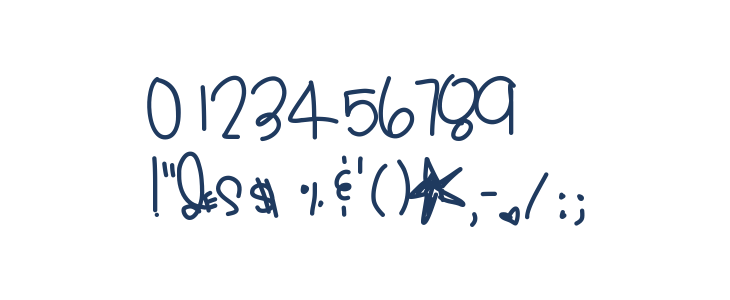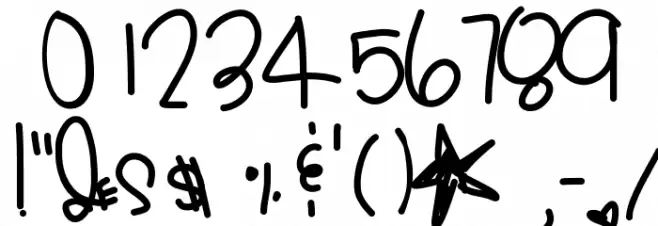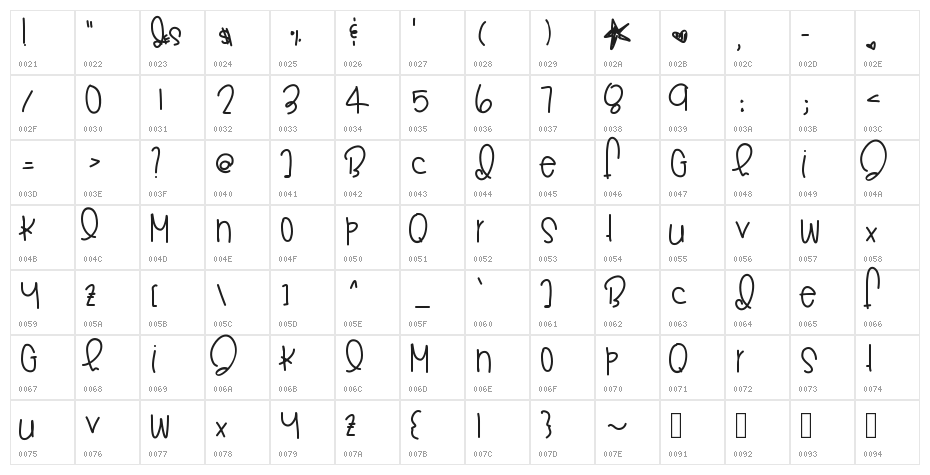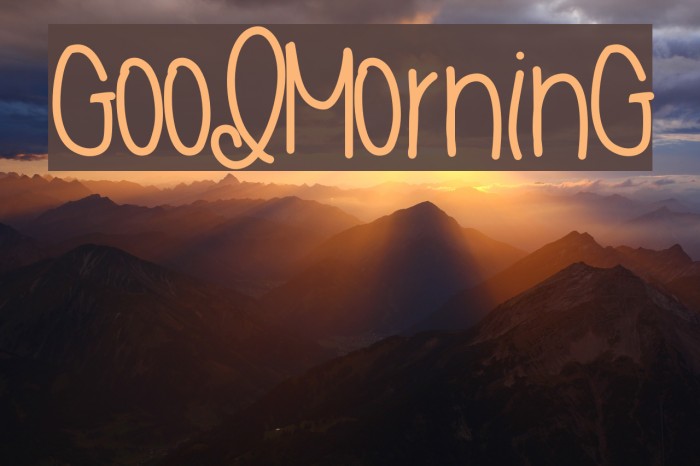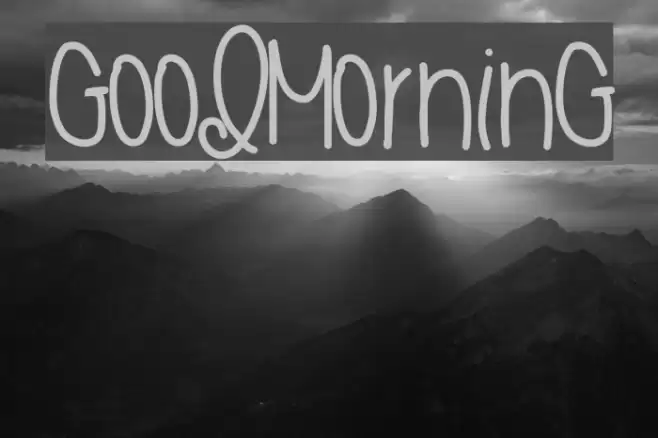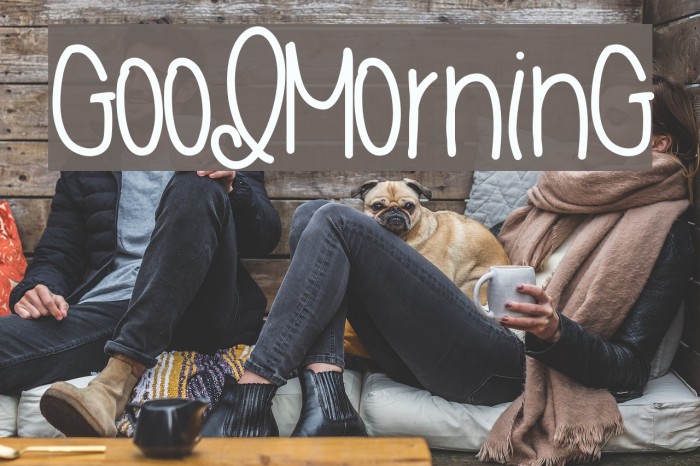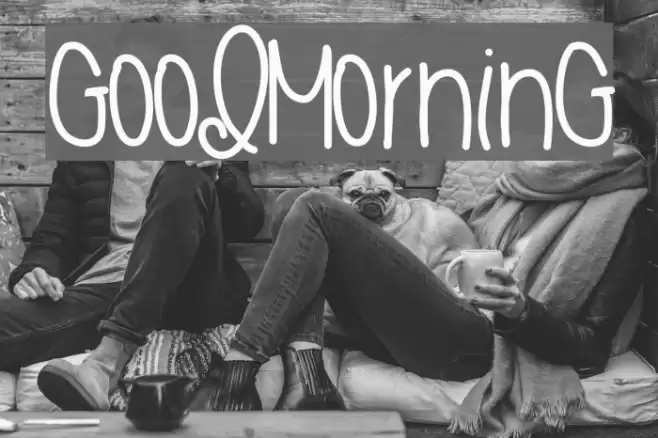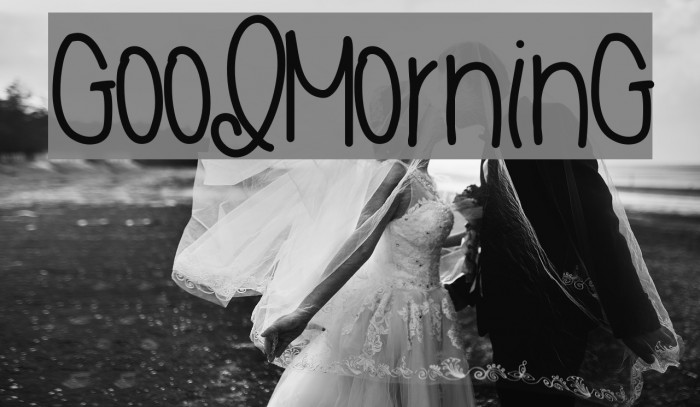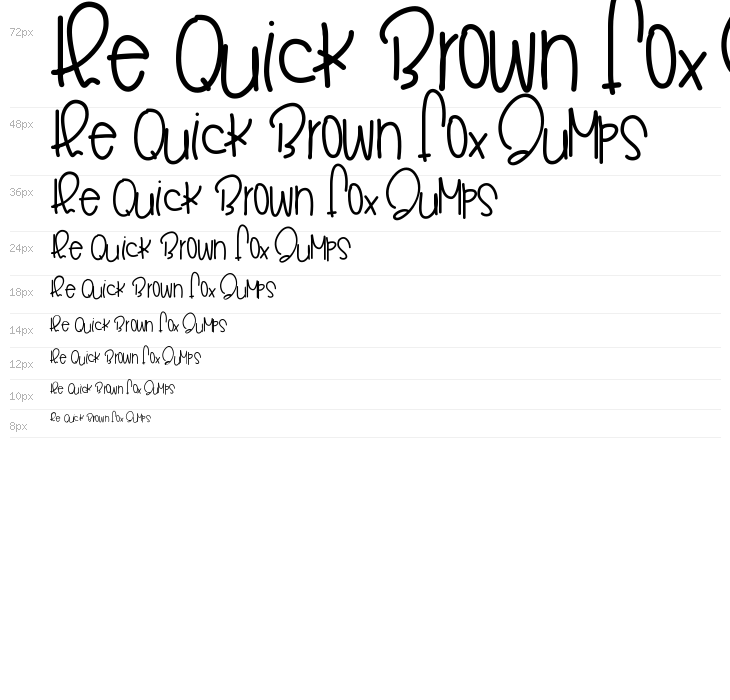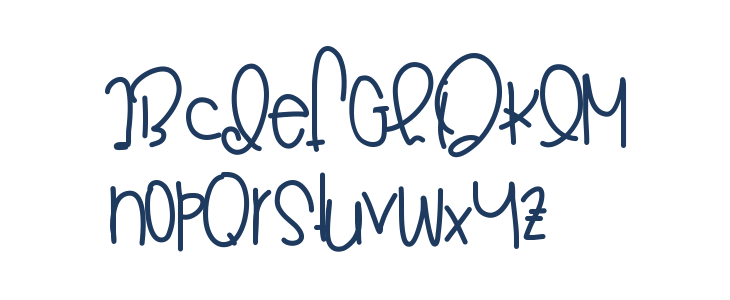
GoodMorning Font
GoodMorning Description
This font features a playful and whimsical design, characterized by its hand-drawn appearance and irregular, flowing lines. The letters are tall and narrow, with a slight slant that gives them a dynamic and lively feel. The strokes are consistent in width, providing a uniform look despite the casual style. The font includes both uppercase and lowercase letters, numbers, and a variety of special characters, making it versatile for different uses. The overall aesthetic is informal and friendly, suitable for projects that aim to convey a sense of fun and creativity.
| Proposed Projects | Ideal for children's book covers, playful branding, greeting cards, and creative social media graphics. |